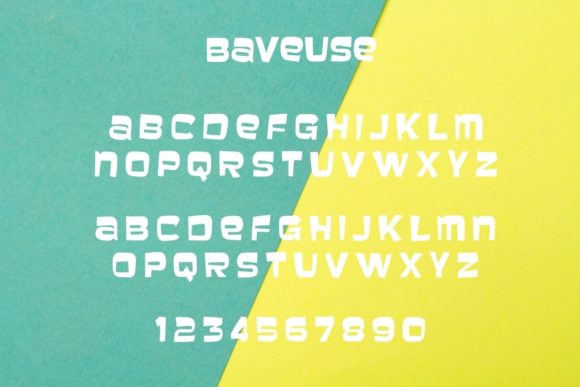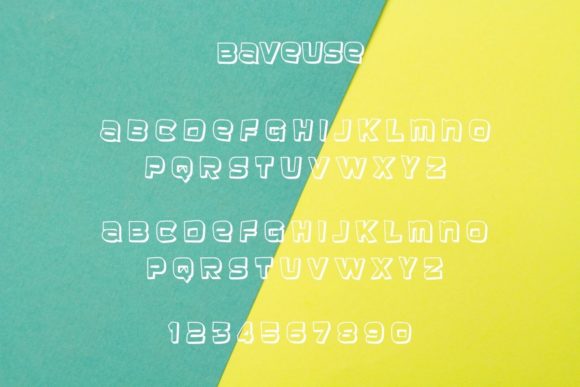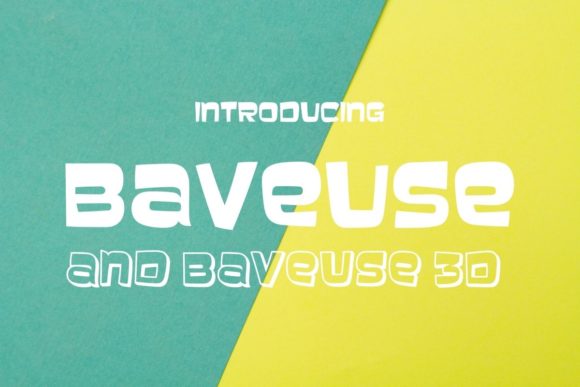
Baveuse
About Baveuse Font
Baveause is a fun and bouncy decorative font that will look great on a playful and youthful design plus the 3D font will add a different element to your designs.